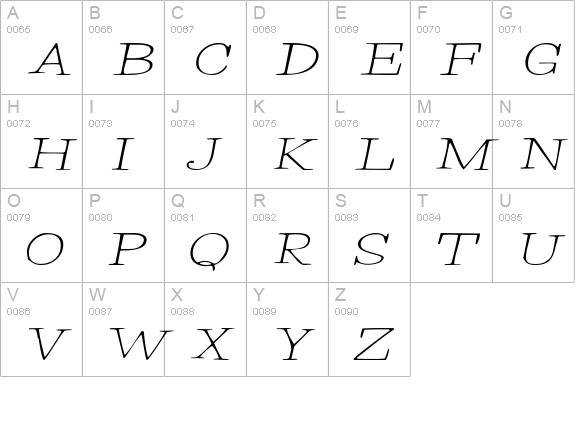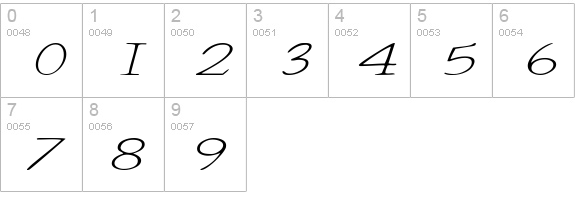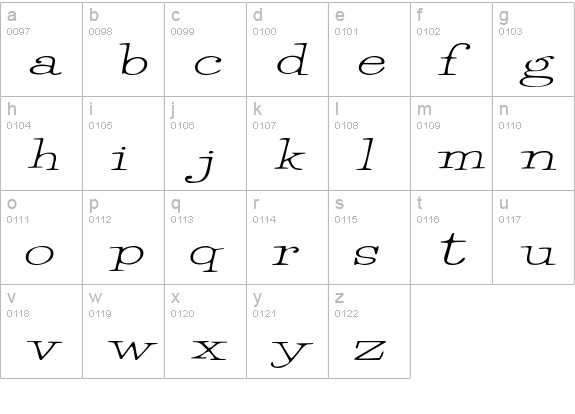
Merrill Italic is a distinctive, italic variant in the Merrill typeface family \xE2\x80\x94 well suited to design and typography projects.
Merrill Italic font is a sophisticated and elegant typeface that exudes charm and character. Its sleek and slanted design adds a touch of modernity to any project, making it perfect for branding, editorial design, and more. With its graceful curves and flowing lines, Merrill Italic font captures attention and conveys a sense of style and refinement. Best of all, Merrill Italic font is available for free download at FontsMarket.com. This means that you can easily access this stunning font and use it in your creative endeavors without any cost. Don't miss out on the opportunity to elevate your designs with the timeless beauty of Merrill Italic font. Download it today and add a touch of sophistication to your projects.